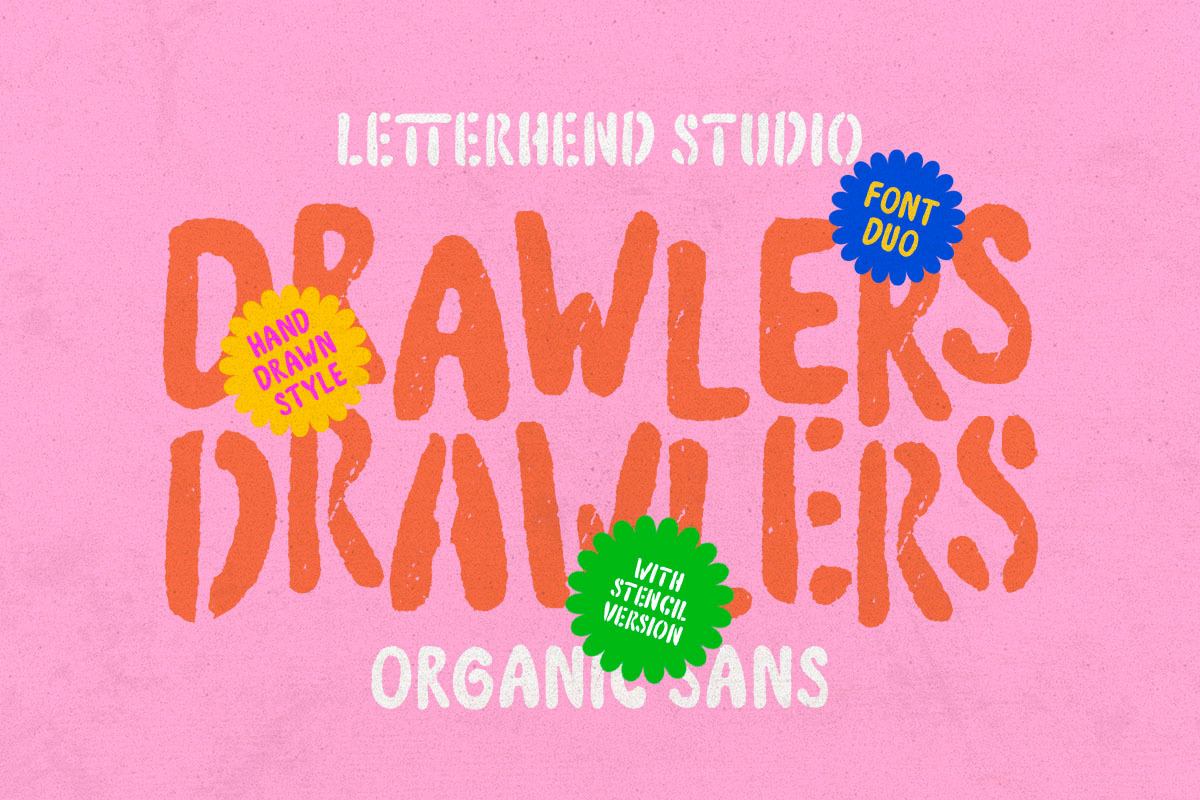
The Drawlers - Organic Sans Font Free Download is a clean yet character-rich typeface that blends modern minimalism with a natural, handcrafted feel. Designed to offer both simplicity and warmth, it's perfect for eco-friendly branding, lifestyle blogs, packaging, wellness products, and modern editorial layouts.
With softly rounded edges and a slightly imperfect structure, Drawlers stands out from traditional sans-serifs while remaining versatile and highly legible. It includes a full set of uppercase and lowercase letters, numbers, punctuation, and multilingual support—ideal for designers seeking an organic yet contemporary vibe.